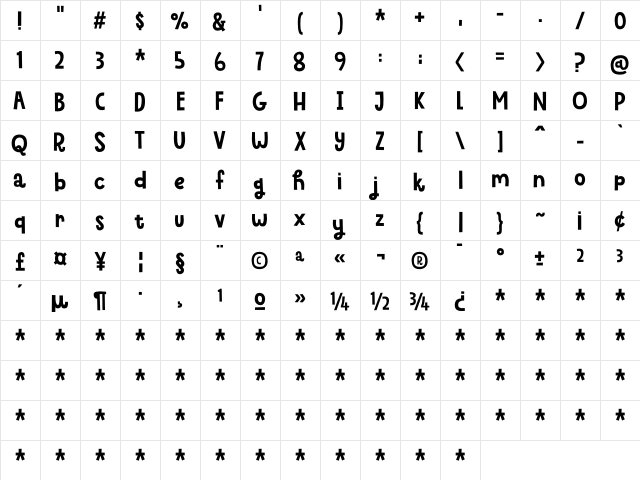
Dancing Fool Regular
| Foundry | Jakob Fischer / pizzadude.dk |
| Designer | Jakob Fischer / pizzadude.dk |
Design Context for Dancing Fool Typeface
Dancing Fool takes a measured approach to typography — its balanced proportions and neutral character make it a reliable workhorse for both digital and print work.